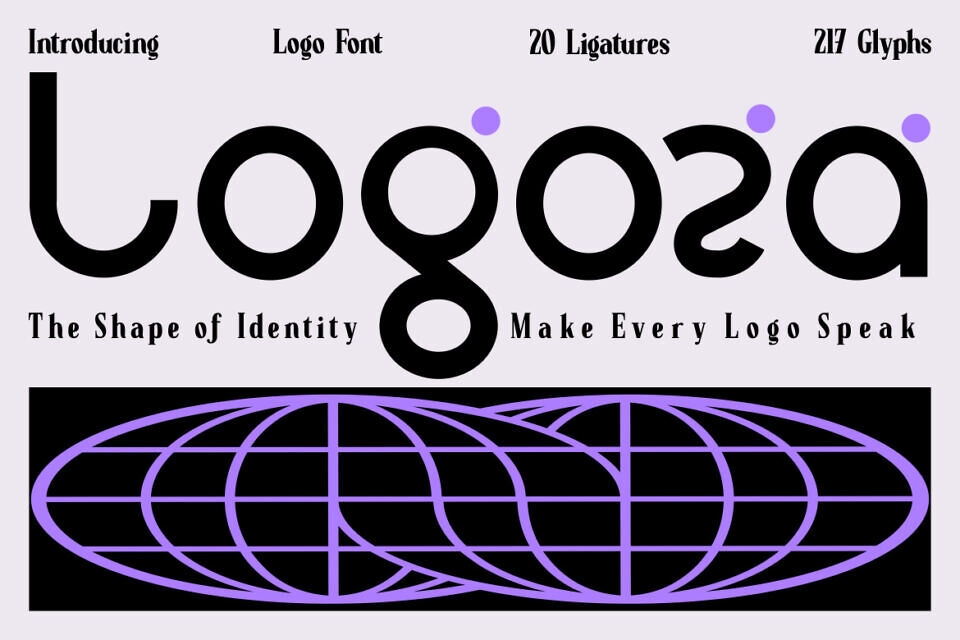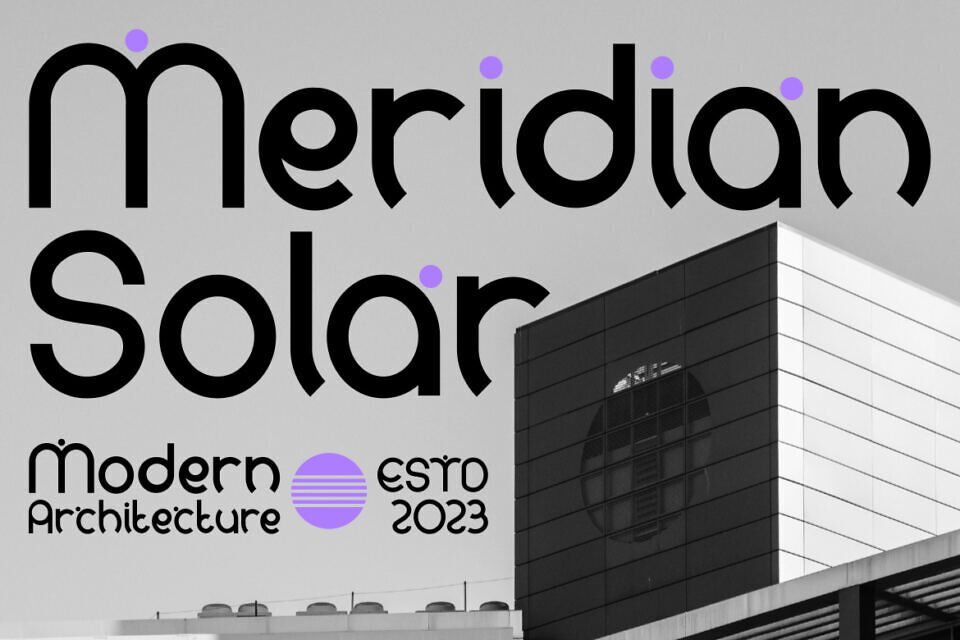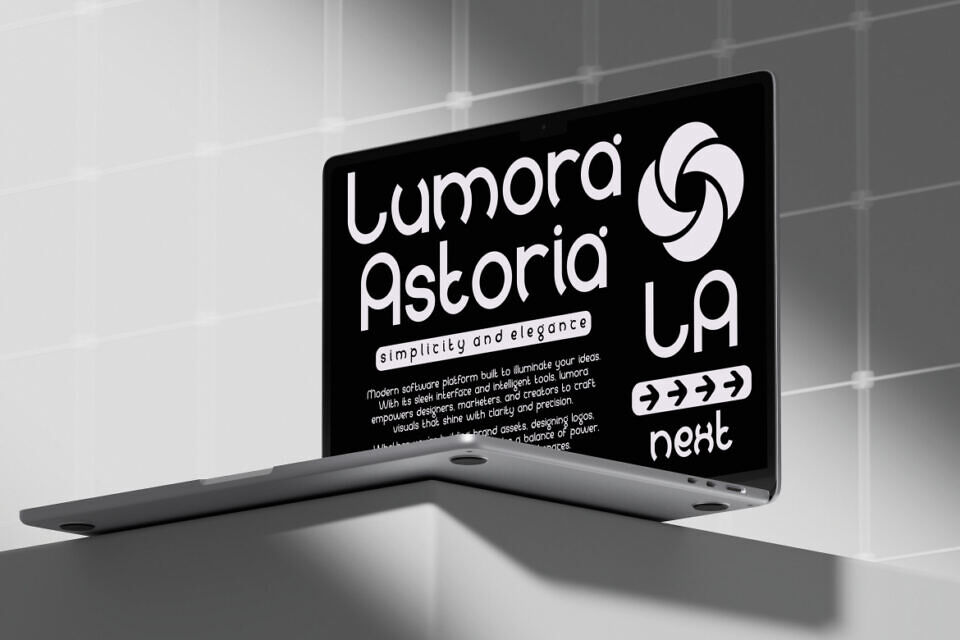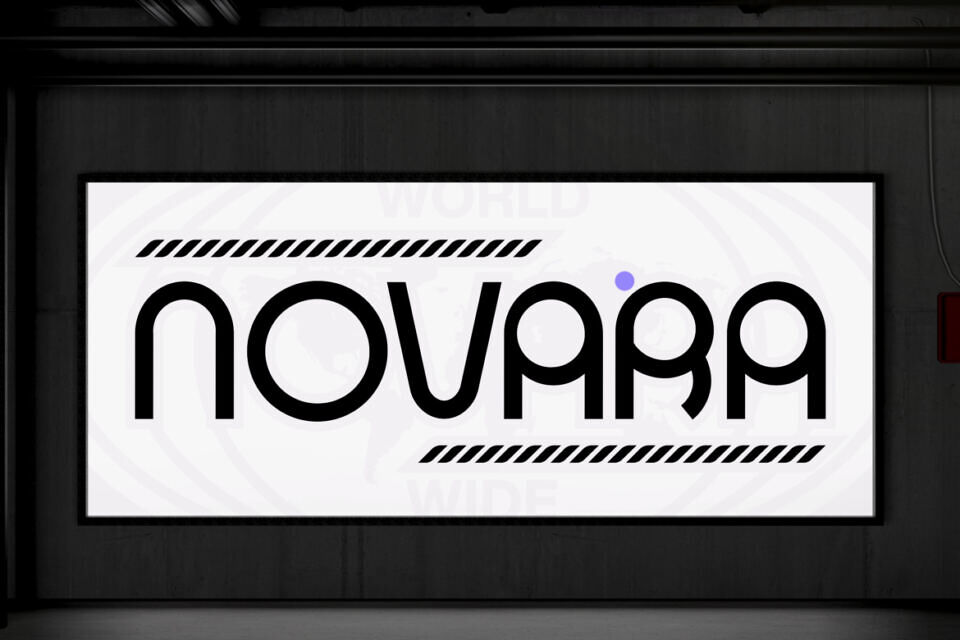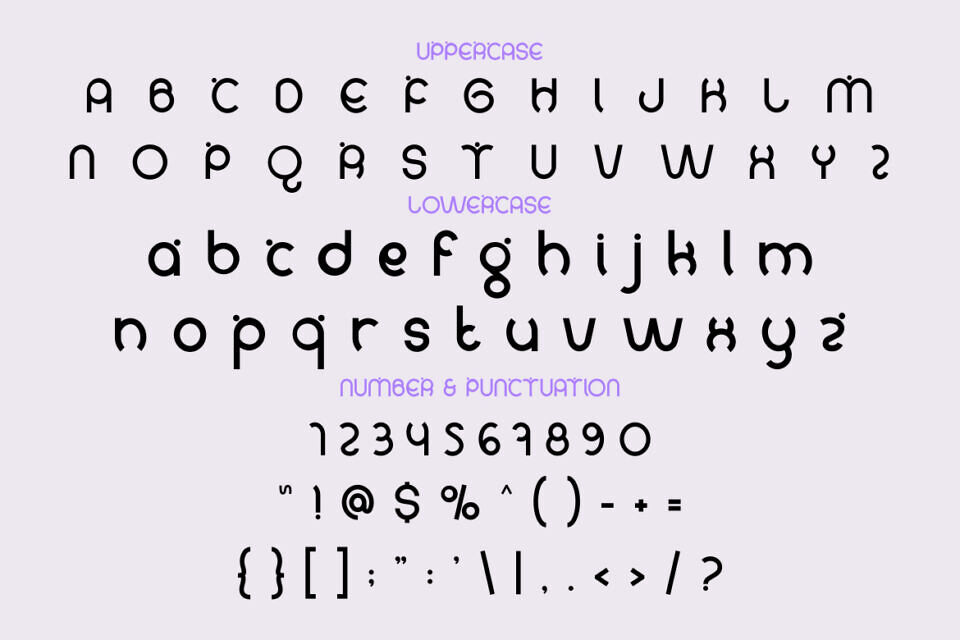
Logoza Font
Logoza Font blends modern geometry with a smooth, organic flow. Its balanced curves and experimental letterforms give every word a custom, hand-crafted feel—perfect for logos and branding. Soft terminals and circular counters keep things friendly yet professional, while clever ligatures allow for seamless, rhythmic designs.
Whether you’re working on packaging, headlines, or digital media, Logoza stays legible while injecting a distinct personality. It’s a versatile, breathable font designed for creators who want their brand identity to feel fresh, polished, and effortlessly unique.